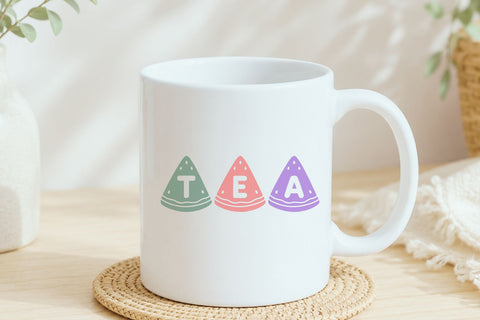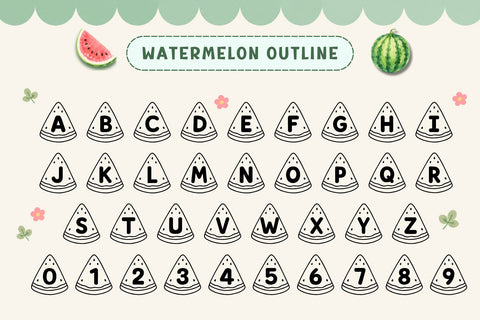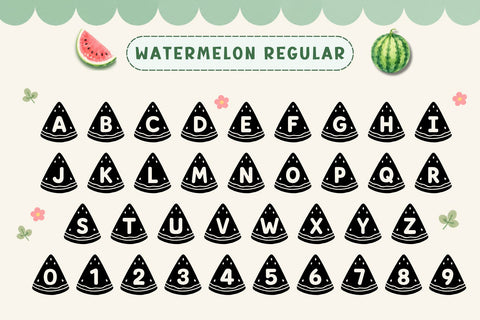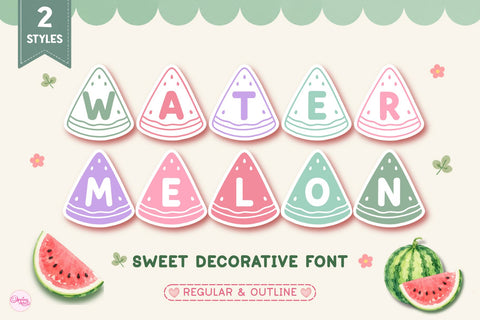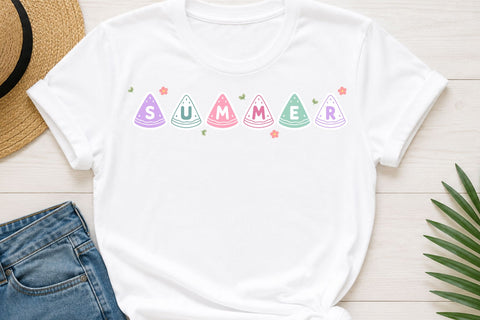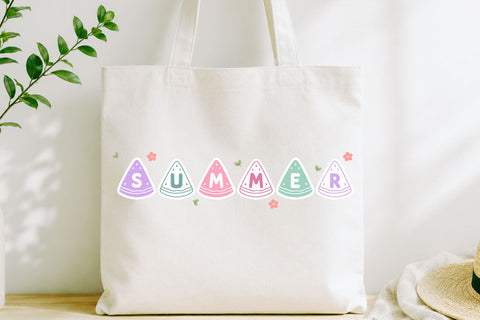
Watermelon Decorative Font Duo | Cute Summer Cricut Font | Regular & Outline Watermelon Alphabet
Bring fun summer vibes to your crafting projects with Watermelon Decorative Font Duo!
This cute watermelon-inspired font includes 2 styles — Regular and Outline — perfect for creating playful summer projects, personalized gifts, and cute handmade designs.
This font is ideal for:
• Cricut & Silhouette projects
• Summer shirts and apparel
• Tumblers and mugs
• Stickers and labels
• Teacher resources
• Kids crafts
• Personalized gifts
• Party decorations
• Scrapbooking
• DIY projects
Create adorable summer-themed designs with this playful fruit-inspired decorative font!